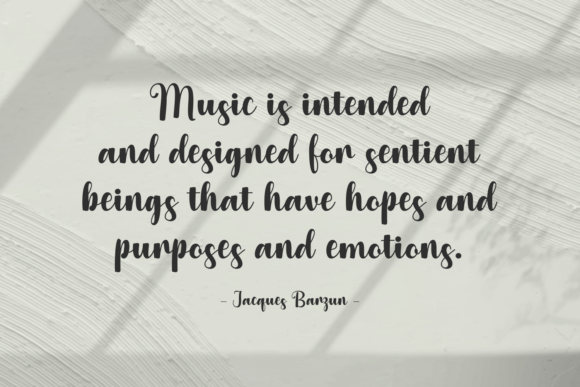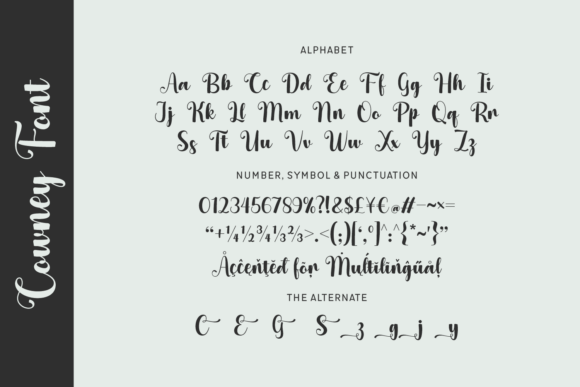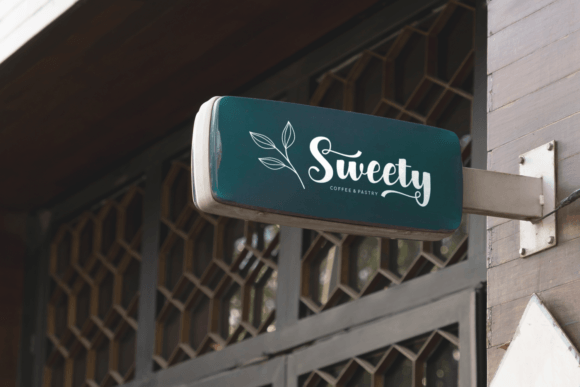
The Elegance of Cowney Font: A Designer’s Delight
I’ll never forget the time I was working on a wedding invitation project, and my client asked for a font that exuded elegance and sophistication. I scoured the internet, tried out countless fonts, but none seemed to fit the bill. That was until I stumbled upon Cowney Font. Its smooth, flowing letters and bold strokes immediately caught my attention. I knew right then and there that it was the perfect fit for the project. In this article, I’ll share with you why Cowney Font is a must-have in your design arsenal.
A Personal Review of Cowney Font
- ✨ Elegant and bold script font that adds a touch of sophistication to any project
- ✅ Smooth, flowing letters that create a beautiful visual flow
- 💫 Perfect for invitations, headings, and any project that needs a personal and artistic flair
- 👍 Great for both digital and print projects
While Cowney Font is an excellent choice for many projects, there are a few things to keep in mind:
- ⚠️ May not be suitable for body text due to its bold and script nature
- 🤔 Limited use of uppercase letters, but this can also add to its elegance
The Backstory of Cowney Font
Cowney Font was designed by a team of typographers who wanted to create a font that exuded elegance and sophistication. Inspired by classic calligraphy, they crafted a font that’s both bold and refined. The result is a font that’s perfect for adding a touch of personality to your designs.
| What type of projects is Cowney Font best suited for? | Cowney Font is perfect for invitations, headings, and any project that needs a touch of sophistication. |
| Is Cowney Font suitable for body text? | No, Cowney Font is best used for headings and titles due to its bold and script nature. |